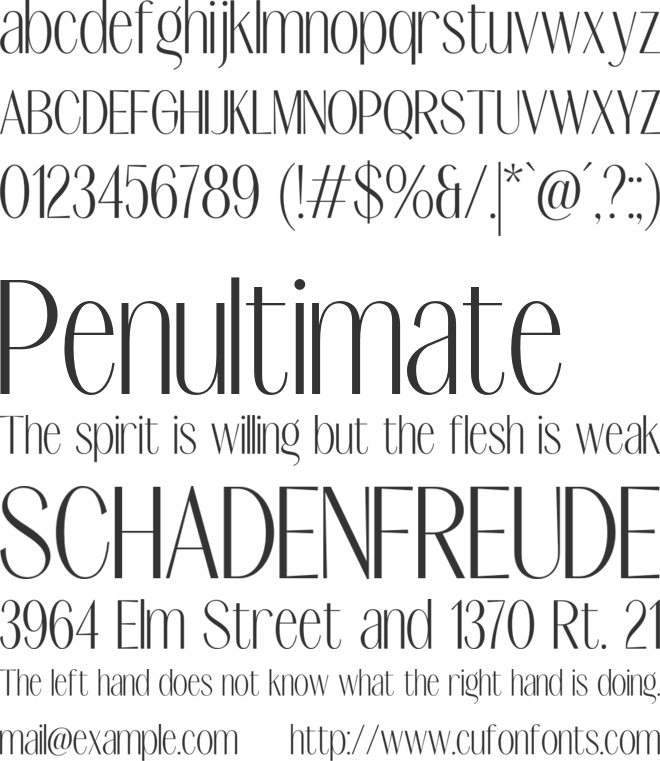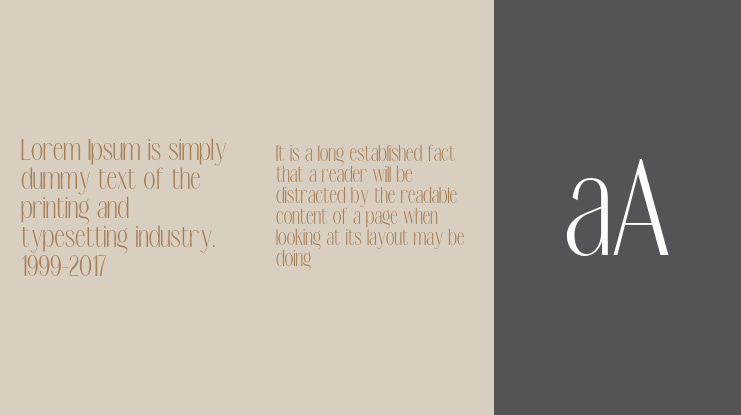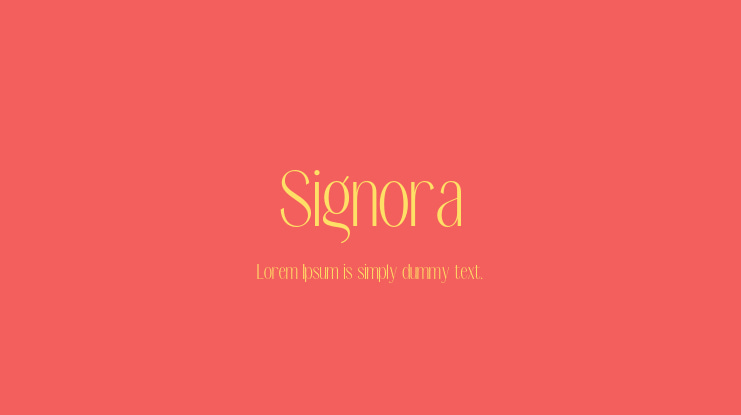
Signora Font Family
The Signora Typeface comes in two styles, regular and wide, allowing you to combine them as you wish. This makes it a perfect choice for your creative endeavors, whether it's branding, stationery, beauty products, magazines, wedding invitations, or anything else you can imagine.